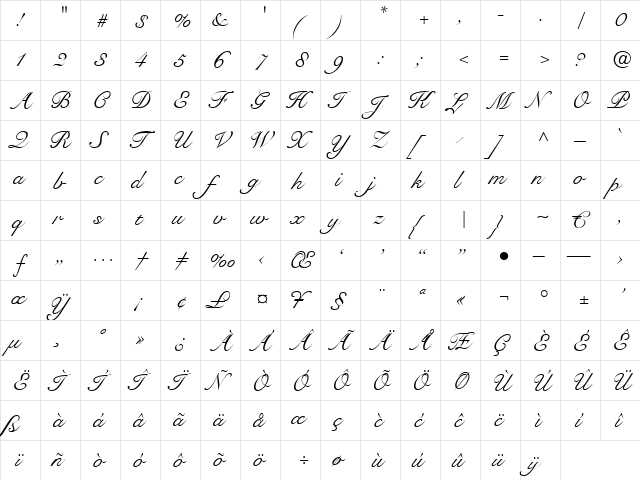
Judith Regular
Design Context for Judith Typeface
Judith is a composed and adaptable typeface that performs quietly and consistently across a wide range of design contexts.